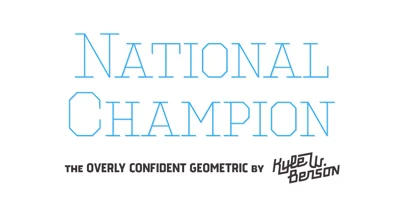
National Champion Font
National Champion Font is perfect for sports team logos, athletic merchandise, championship banners, fitness center branding, sports equipment packaging, competitive event materials, victory celebration designs, and professional sports marketing campaigns. This powerful typeface brings competitive spirit and athletic excellence to any design project targeting sports enthusiasts and championship-minded audiences.
What makes National Champion Font exciting is its bold, commanding presence that embodies the determination and strength required to achieve championship status. The robust letterforms feature strong, geometric construction with dynamic angles that create an unmistakable sense of power and victory. Each character radiates confidence and competitive edge, making it the perfect choice for brands that celebrate athletic achievement and championship excellence.
The National Champion Font family includes multiple weights from regular to ultra-bold, complete with uppercase and lowercase letters, numbers, punctuation marks, and special characters. Many versions feature additional athletic-inspired elements, team number variations, and decorative symbols that enhance the championship aesthetic and support sports-related design applications.
Whether you're developing professional sports brands or creating victory-themed marketing materials, National Champion Font offers unmatched impact and authority. This championship-caliber typography choice transforms ordinary text into powerful statements that inspire audiences to pursue excellence and celebrate achievement. The font's exceptional performance across digital and print media ensures consistent brand recognition while maintaining its distinctive competitive character that makes every design project feel like a championship-winning performance that commands respect and admiration.